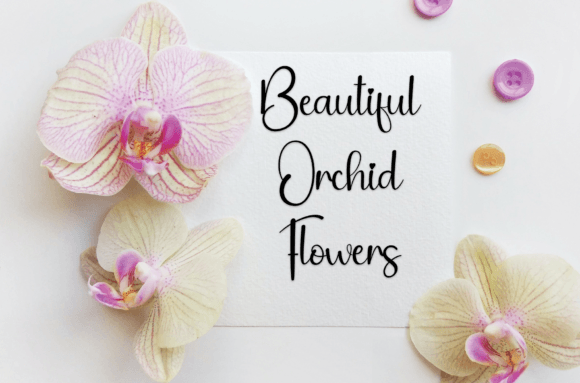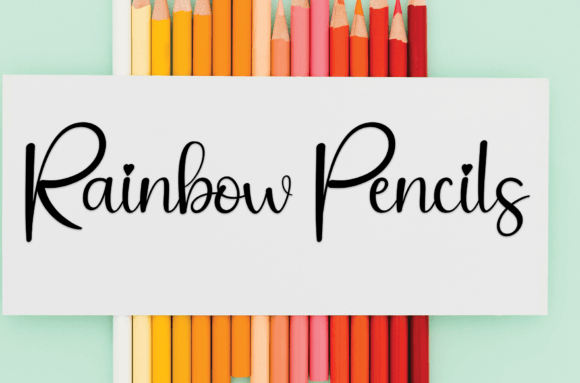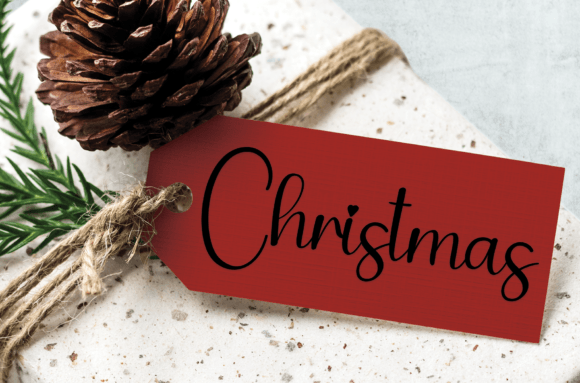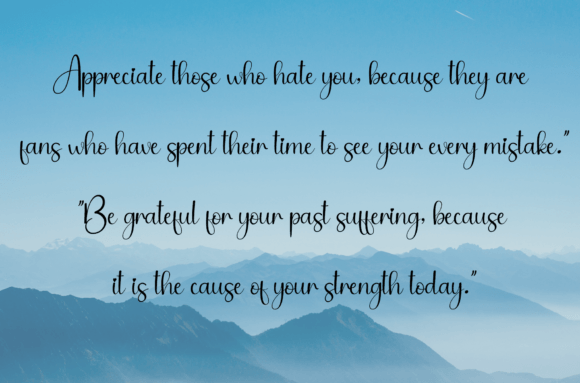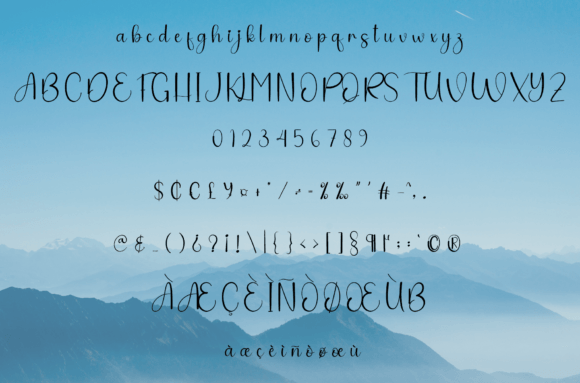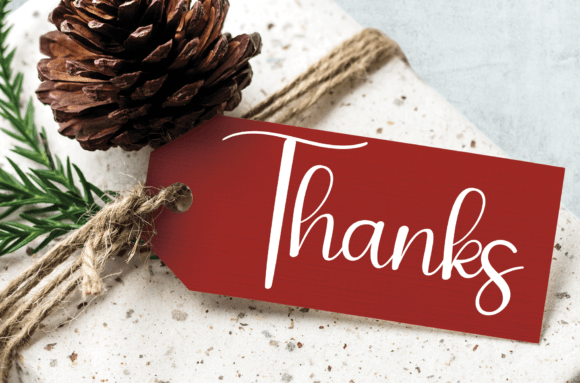
Unleash the Sweetness of Your Designs with Barbie Font
Have you ever sat at your desk, surrounded by scraps of paper, glitter, and a million ideas swirling in your head? That’s exactly where I was when I stumbled upon the perfect font to elevate my designs: Barbie Font. This delightful handwritten font is a breath of fresh air, perfect for adding a touch of whimsy and personality to your projects.
As a designer, you know how much of a difference a great font can make. Barbie Font is no exception. With its friendly, relaxed feel, it’s ideal for writing wedding invitations, cards, or any other design that needs a little extra love. Whether you’re a seasoned pro or just starting out, Barbie Font is a valuable addition to your toolkit. Its unique charm will help you stand out from the crowd and make your designs truly unforgettable.
Barbie Font Key Features
- Font Family: Barbie Font is a custom font designed specifically for the Barbie brand.
- Unique Characteristics: The font features a distinctive, cursive script with rounded edges and a playful feel, evoking the iconic Barbie brand aesthetic.
Designer Review: Barbie Font
The Barbie Font is a visually striking and playful typeface, perfect for projects that need a touch of whimsy and femininity. ✨ Its rounded edges and soft curves evoke the classic look and feel of the iconic Barbie doll. ✨ The font’s versatility makes it suitable for various design applications, from children’s books to fashion branding.
One of the strengths of the Barbie Font is its high legibility, even at small font sizes. ✨ This makes it an excellent choice for body text, where readability is crucial. Additionally, the font’s compatibility with various operating systems and devices ensures that it will display consistently across different platforms.
- ⚠️ Limited character set: The Barbie Font’s character set is somewhat limited, which may not be ideal for projects that require a wide range of characters or special symbols.
- ⚠️ Lack of robustness: The font’s playful design may not be suitable for formal or professional applications, where a more robust and serious typeface is required.
Overall, the Barbie Font is a fun and charming typeface that excels in certain design contexts. While it may have some limitations, its unique personality and versatility make it a great addition to any designer’s toolkit.
Some common use cases for the Barbie Font include:
1. Children’s book illustrations and design.
2. Fashion and beauty branding.
3. Retro-themed designs and advertisements.
Some tips for getting the most out of the Barbie Font include:
1. Pairing it with bright and pastel colors to create a playful and nostalgic look.
2. Using it in combination with other fonts to create a unique and eye-catching design.
3. Experimenting with different font sizes and styles to achieve the desired level of whimsy and fun.
Alternatives to “Barbie Font” for Designers
Comic Sans MS is a sans-serif font designed to mimic handwriting. It’s often used for informal documents, children’s materials, and creative projects. It’s a good alternative to Barbie Font for designers who need a friendly and approachable tone.
Comparison: While Barbie Font is more elegant and sophisticated, Comic Sans MS is more playful and casual. It’s suitable for designers who want to convey a sense of fun and approachability in their designs.
Great Vibes is a modern, script font with a friendly and approachable feel. It’s often used for branding, packaging, and advertising. It’s a good alternative to Barbie Font for designers who need a sophisticated and elegant tone.
Comparison: While Barbie Font is more delicate and feminine, Great Vibes is more bold and expressive. It’s suitable for designers who want to convey a sense of luxury and sophistication in their designs.